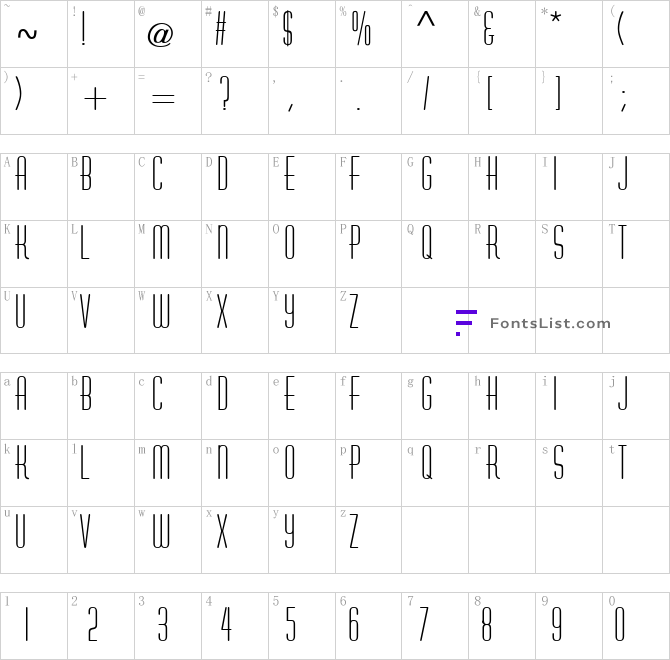
- Font Name:Astaire-Plain
Astaire-Plain.ttf is a very beautiful artistic font, Astaire-Plain.ttf is widely used in the design and printing of various books and pictures,Astaire-Plain.ttf has a strong visual impact,Astaire-Plain.ttf is a commonly used font in newspapers, magazines and books, and is used in posters, e-commerce Poster design, store design, logo design, font design and other fields.Astaire-Plain.